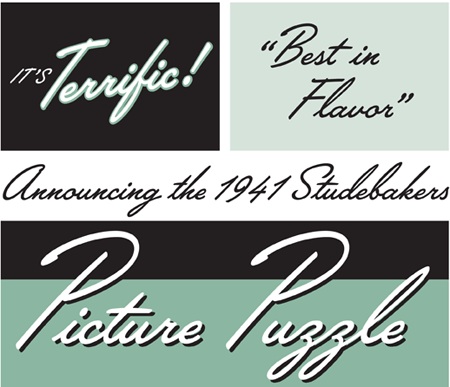
Font Fetish: Lakeside
Mark Simonson's Lakeside is a 1940s script treat
Font Fetish shows samples of a noteworthy typeface and gives you a bit of background, including where to get the font. For the first Font Fetish entry, I'm going back in time to Mark Simonson's Lakeside, a type family inspired by titles from the 1944 film noir movie "Laura":
While its inspiration is old, the technology behind Lakeside is not -- you'll find many OpenType features, such as automatic alternate letters, automatic fractions, and multi-lingual support.